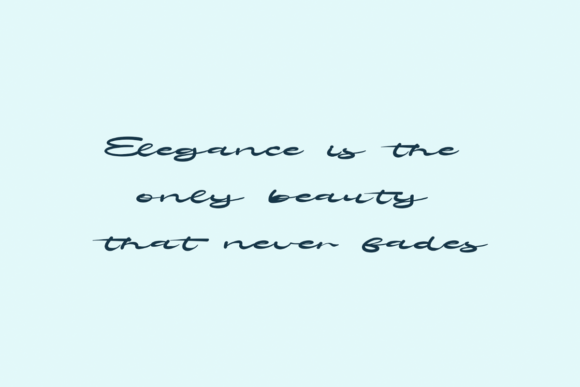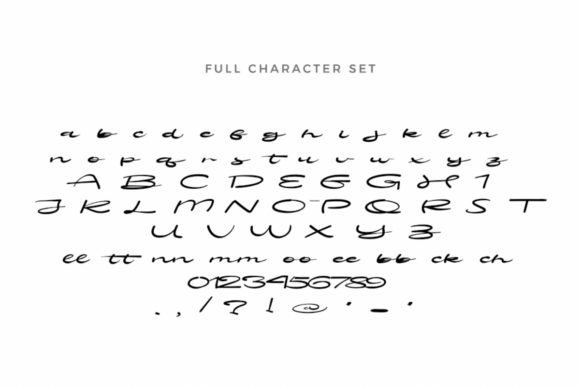
Discover the Charm of Camryn: A Singularly Captivating Script Font
In the world of typography, few fonts manage to capture the essence of handcrafted elegance and uniqueness. Camryn, a beautifully designed script font, stands out as a singularly captivating typeface that brings a touch of personality and warmth to any artistic project. With its meticulously crafted, hand-lettering touch, Camryn offers a refreshing alternative to conventional fonts, allowing designers and crafters to add a distinctive flair to their work.
The Allure of Hand-Lettering
Camryn’s design is rooted in the art of hand-lettering, a technique that requires precision, patience, and a personal touch. Each letter, curve, and line in Camryn has been carefully crafted to emulate the fluidity and expressiveness of handwritten script. This painstaking attention to detail results in a font that exudes a sense of authenticity and charm, making it perfect for projects that demand a personal and human touch.
Elegantly Lovely Script Design
Camryn’s script design is characterized by its elegant and lovely aesthetic. The font features beautifully flowing connections between letters, creating a sense of movement and fluidity. The curves and lines are carefully proportioned to produce a harmonious and balanced look, making Camryn suitable for a wide range of applications, from wedding invitations and greeting cards to branding and advertising.
Unleashing Creativity with Camryn
One of the most significant advantages of Camryn is its ability to add a delightful personality to artistic projects. Designers and crafters can use Camryn to create unique and eye-catching designs that stand out from the crowd. Whether you’re working on a logo, brochure, or social media graphics, Camryn provides a versatile and expressive solution that can help you communicate your message with style and sophistication.
The Expressive World of Camryn
When you dive into the world of Camryn, you’ll discover a typographic experience like no other. Every single curve and line in Camryn translates into a piece of art, making it perfect for designers and crafters who value creativity and originality. With Camryn, you can add a special warmth and authenticity to your work, creating designs that resonate with your audience on a deeper level.
Applications of Camryn
Camryn’s versatility makes it suitable for a wide range of applications, including:
- Branding and logo design
Why Choose Camryn?
So, why choose Camryn for your design projects? Here are just a few reasons:
- Unique and captivating design
- Meticulously crafted with a hand-lettering touch
- Elegant and lovely script design
- Versatile and expressive
- Adds a special warmth and authenticity to your work
In conclusion, Camryn is a singularly captivating script font that offers a refreshing alternative to conventional typography. With its meticulously crafted, hand-lettering touch and elegantly lovely script design, Camryn adds a delightful personality to artistic projects. Whether you’re a designer, crafter, or simply someone who appreciates the art of typography, Camryn is sure to inspire and captivate. So, dive into the expressive world of Camryn and discover the charm of this truly unique typeface.